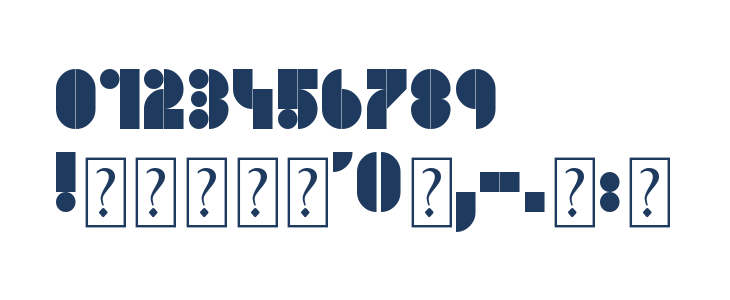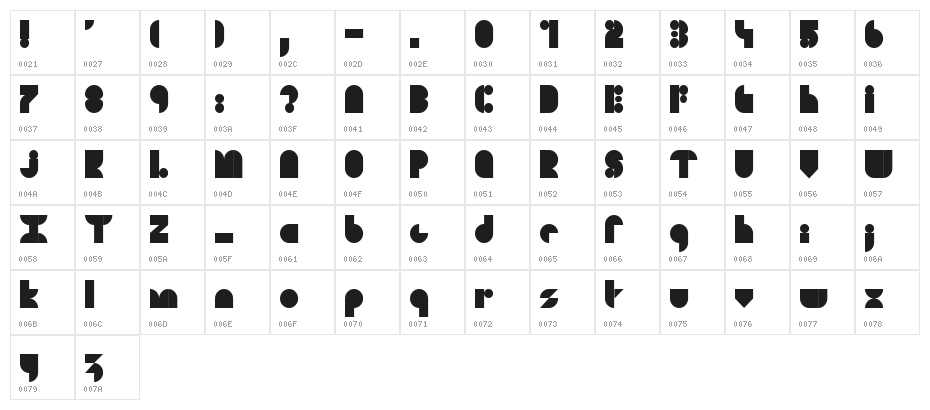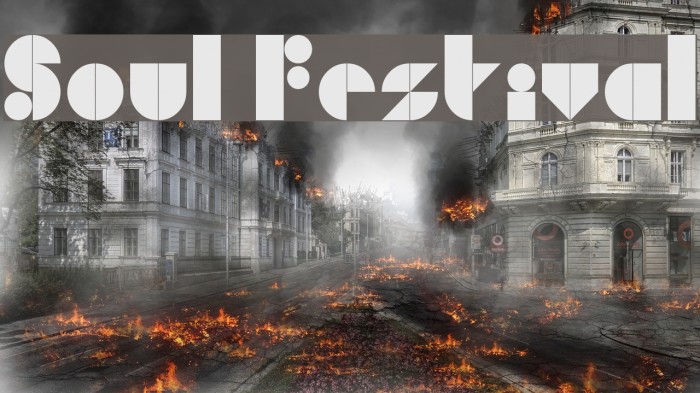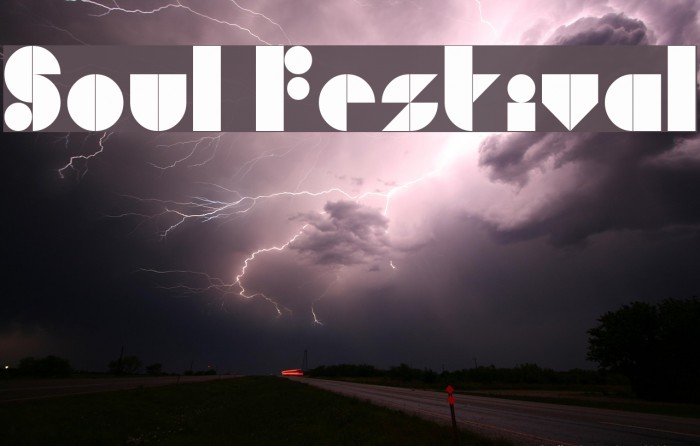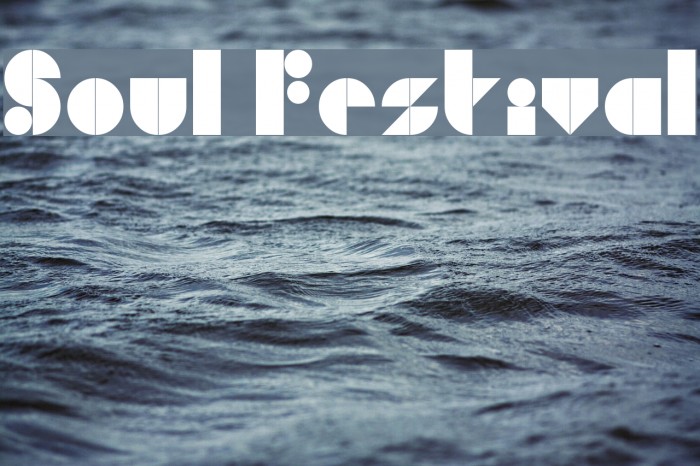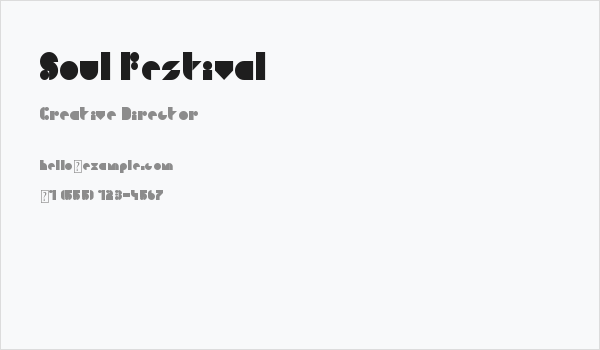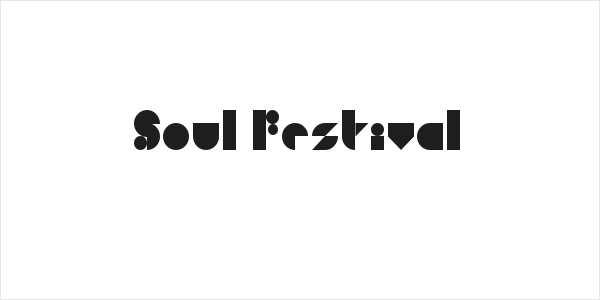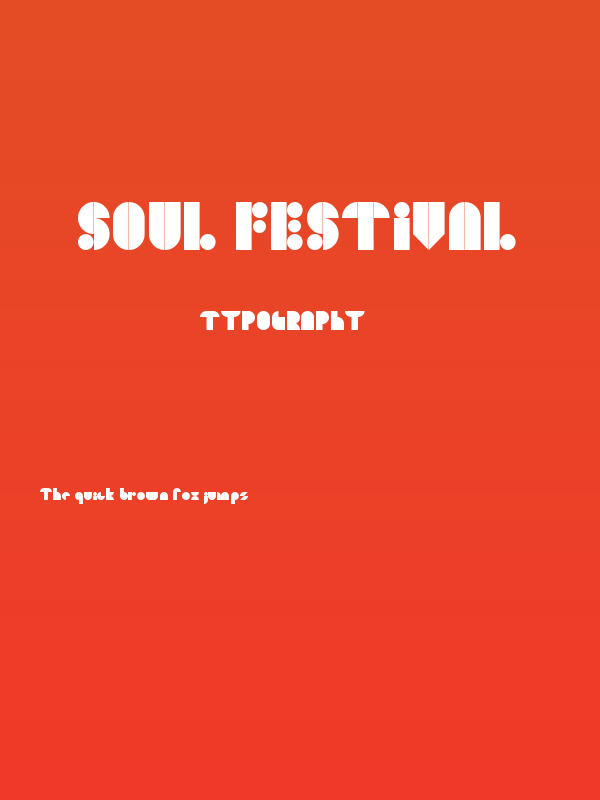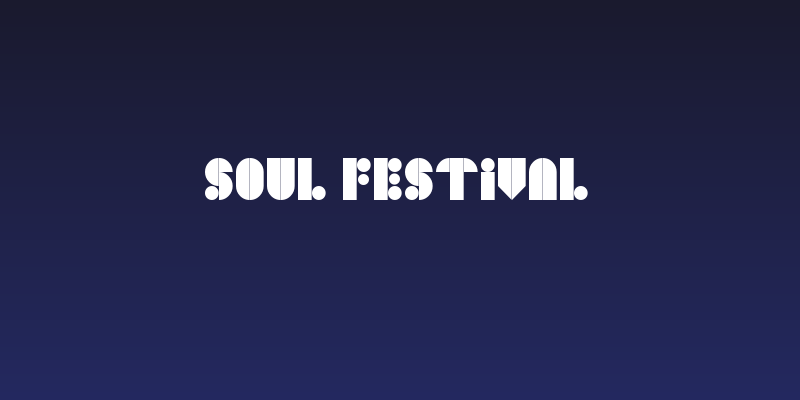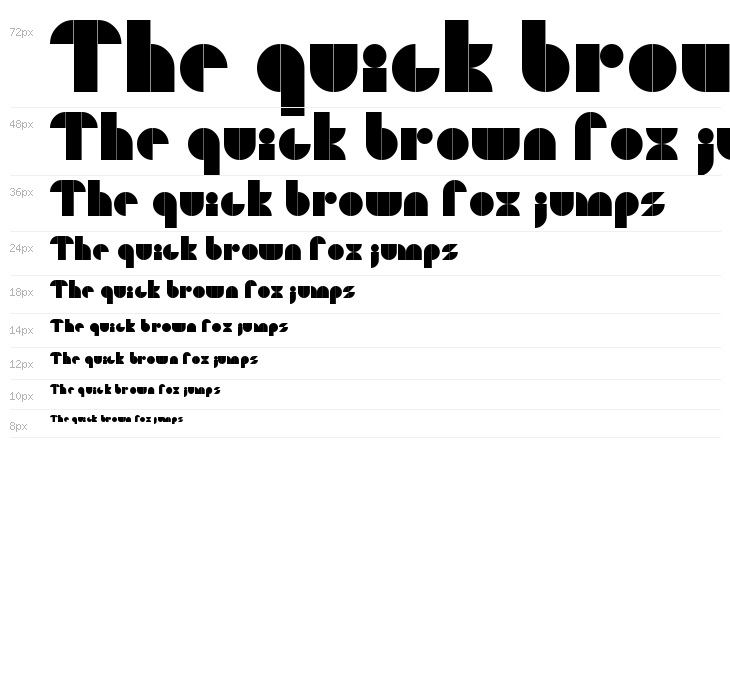
Soul Festival Font
Soul Festival Description
This font features a bold, geometric design with a strong emphasis on circular and semi-circular shapes. Each character is constructed with solid, block-like forms, creating a striking visual impact. The uppercase letters are particularly distinctive, with their use of full and half circles, while the lowercase letters maintain a consistent style with slightly softer edges. The numerals and special characters follow the same geometric theme, ensuring a cohesive look across all glyphs. The font's unique style makes it ideal for attention-grabbing headlines and creative design projects.
| Proposed Projects | Ideal for posters, branding, album covers, and any project requiring a bold, modern aesthetic. |